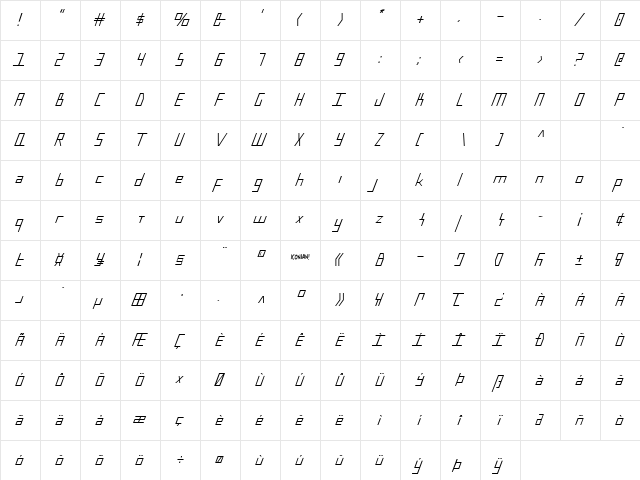
Blue July Condensed Condensed
Design Context for Blue July Condensed Typeface
Blue July Condensed offers clean, dependable letterforms without strong stylistic allegiance, making it a practical choice for designers who need flexibility. Its narrow stance lets it pack a punch even in space-constrained designs.